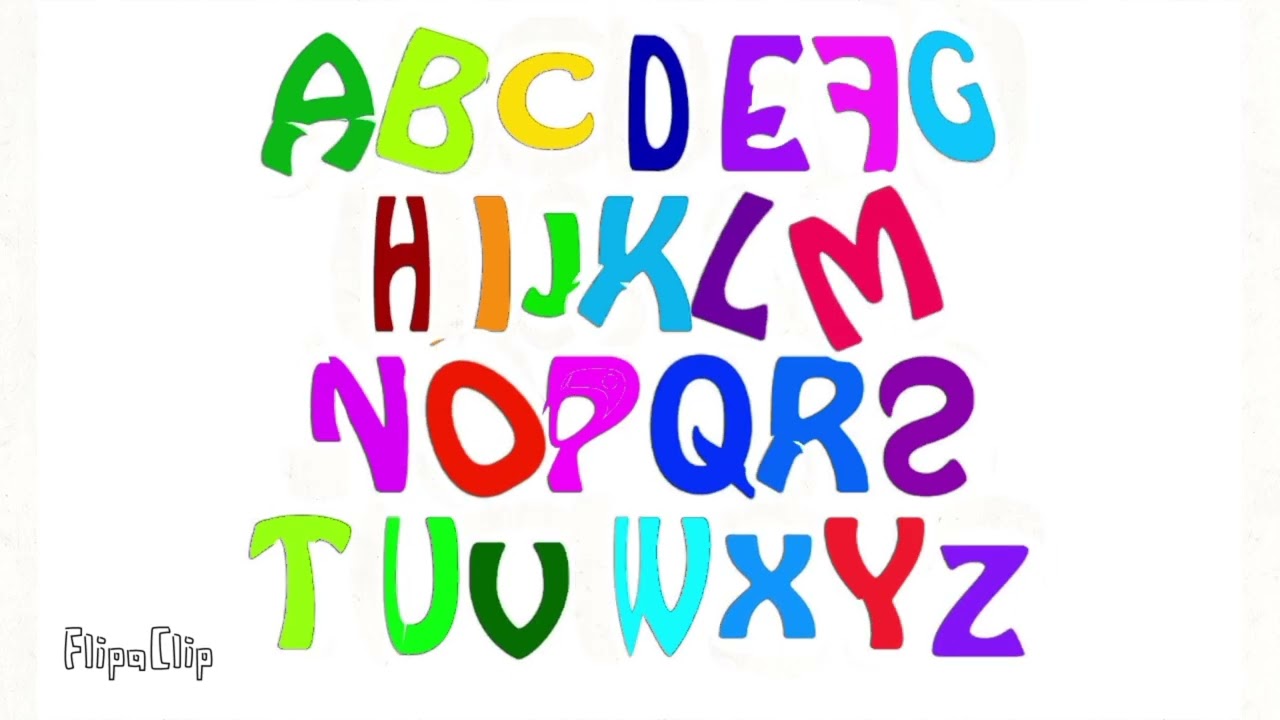
Hobo Font
Hobo Font By Vladimir Nikolic Fontriver Hobo is a playful, rounded font with smooth curves and a bold, friendly appearance. it is suitable for headlines, logos, posters and other casual and inviting designs. download it for free or buy commercial fonts from ffonts . Hobo was designed in 1910 by morris fuller benton for american type founders. this unusual art nouveau inspired design contains no straight lines and no descenders. it imparts a friendliness to display work such as invitations, menus, signage, and packaging.
Hobo Font By Vladimir Nikolic Fontriver Browse and download 7 free fonts in the hobo style, a type of display font with exaggerated letterforms and contrast. find popular fonts like soupkitchen, harlequinflf, memories round and more. Free for personal use. for commercial use, please order a license here: creativefabrica product hobo ref 144265. Learn about hobo font, a sans serif typeface with a bold and geometric style, inspired by art nouveau and created by morris fuller benton in 1910. try out the hobo font generator, see its effectiveness in various contexts, and find suggested fonts for pairing. Download hobo bt font for pc mac for free, take a test drive and see the entire character set. moreover, you can embed it to your website with @font face support.
Hobo Font Dafont Learn about hobo font, a sans serif typeface with a bold and geometric style, inspired by art nouveau and created by morris fuller benton in 1910. try out the hobo font generator, see its effectiveness in various contexts, and find suggested fonts for pairing. Download hobo bt font for pc mac for free, take a test drive and see the entire character set. moreover, you can embed it to your website with @font face support. Hobo font is a modern typeface perfect for contemporary designs. created in the sans serif style with assistance from adobe, this font family includes bold, italic, and regular weights. it is available in otf format and is well known for its pairing capabilities. The hobo font is a dynamically tapering face in which all strokes are accentuated curves, achieving a superb decorative effect. hobo almost suggests a freely drawn alphabet with its unusual robust roundness. Hobo is a sans serif typeface with no straight lines or descenders, created by morris fuller benton in 1910. it has a bow legged shape and a mysterious name, and it is used in various media and logos. Hobo std is a classy and delicate display font that was created by morris fuller benton and shared by american type founders (atf) in 1910. it features a unique and distinctive design along with playful appearance sets, rounded and irregular letterforms.
Enhance Your Designs With Hobo Font Hobo font is a modern typeface perfect for contemporary designs. created in the sans serif style with assistance from adobe, this font family includes bold, italic, and regular weights. it is available in otf format and is well known for its pairing capabilities. The hobo font is a dynamically tapering face in which all strokes are accentuated curves, achieving a superb decorative effect. hobo almost suggests a freely drawn alphabet with its unusual robust roundness. Hobo is a sans serif typeface with no straight lines or descenders, created by morris fuller benton in 1910. it has a bow legged shape and a mysterious name, and it is used in various media and logos. Hobo std is a classy and delicate display font that was created by morris fuller benton and shared by american type founders (atf) in 1910. it features a unique and distinctive design along with playful appearance sets, rounded and irregular letterforms.
Enhance Your Designs With Hobo Font Hobo is a sans serif typeface with no straight lines or descenders, created by morris fuller benton in 1910. it has a bow legged shape and a mysterious name, and it is used in various media and logos. Hobo std is a classy and delicate display font that was created by morris fuller benton and shared by american type founders (atf) in 1910. it features a unique and distinctive design along with playful appearance sets, rounded and irregular letterforms.